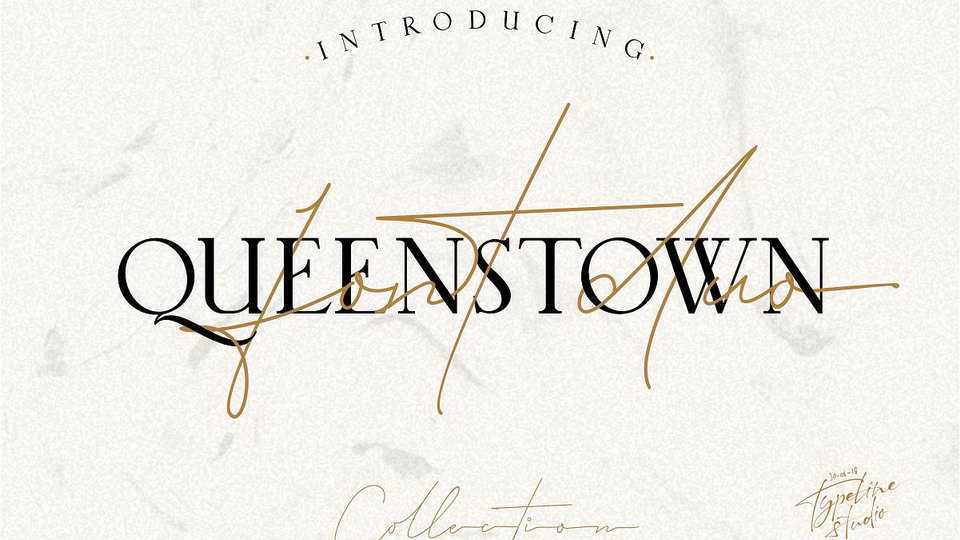
Download Queenstown Signature font – a modern script signature that are very beautiful, luxurious and high class fashion font. Queenstown Signature includes over 45 ligatures, and lowercase alternates to make it more natural and has a beautiful characteristic handlettering for ending swash.
Designer: Typeline Studio